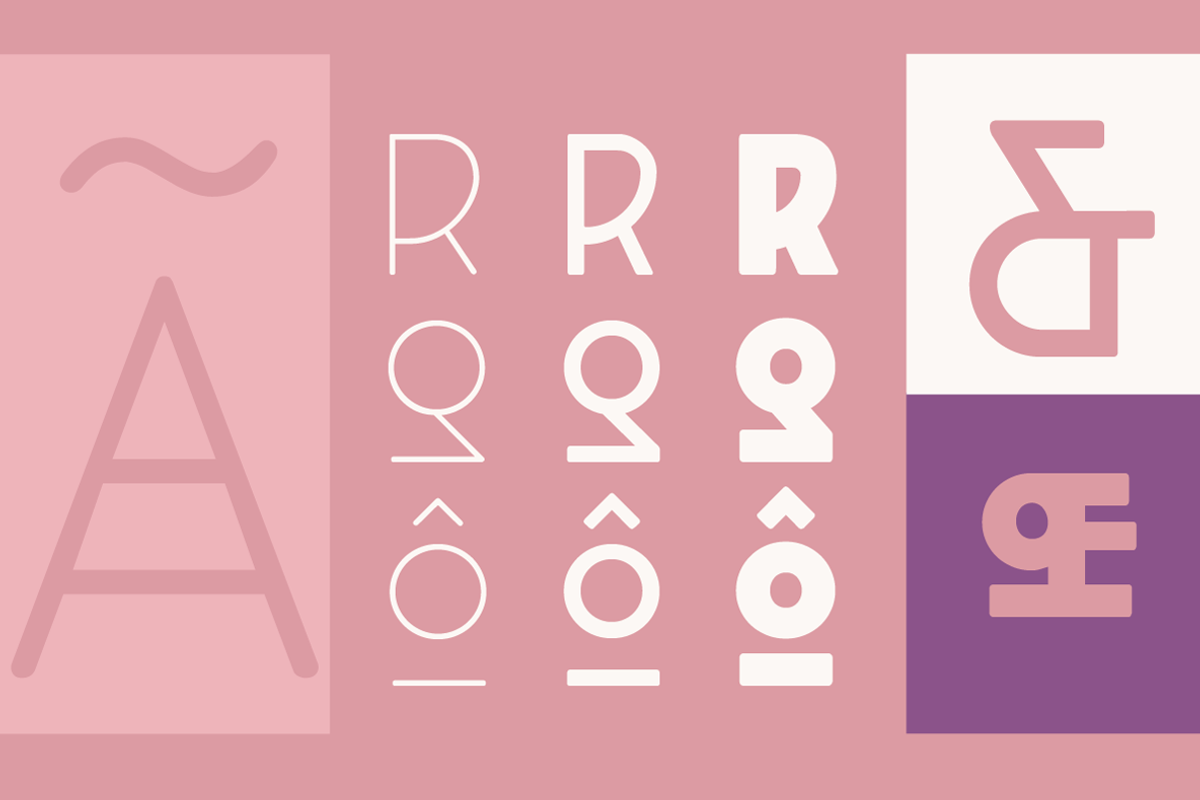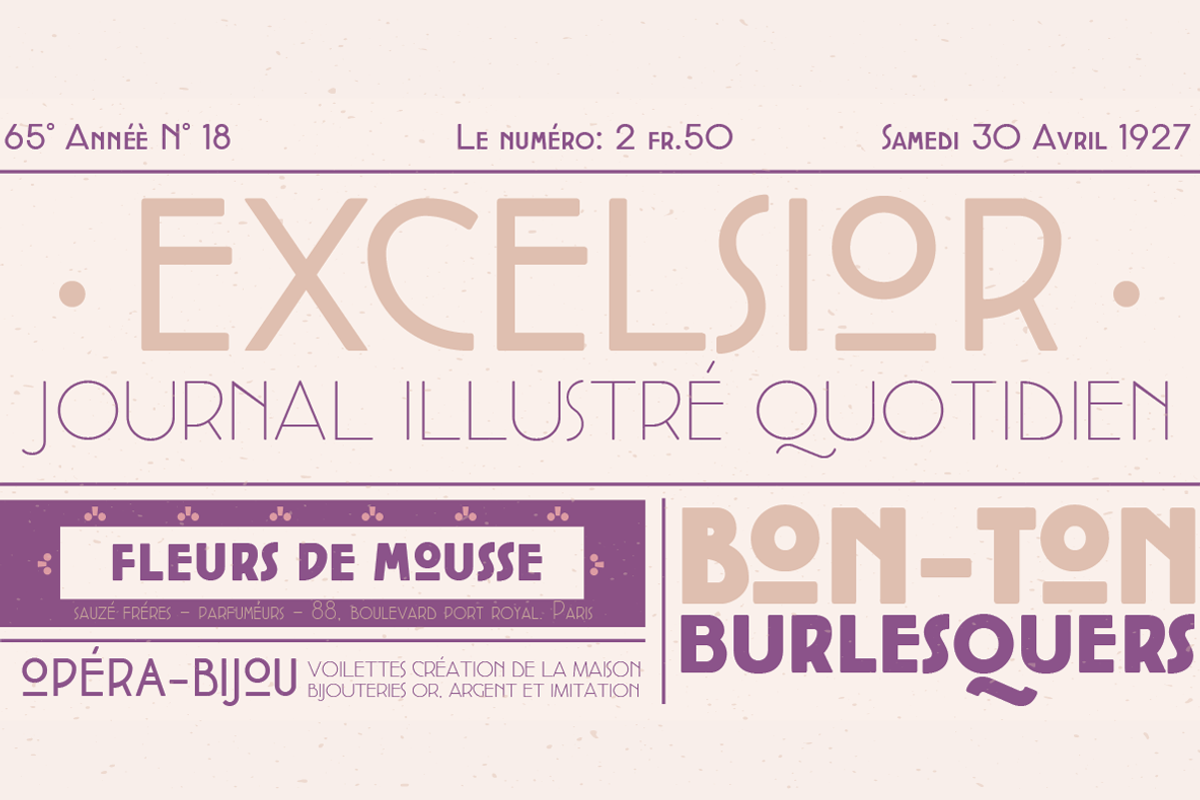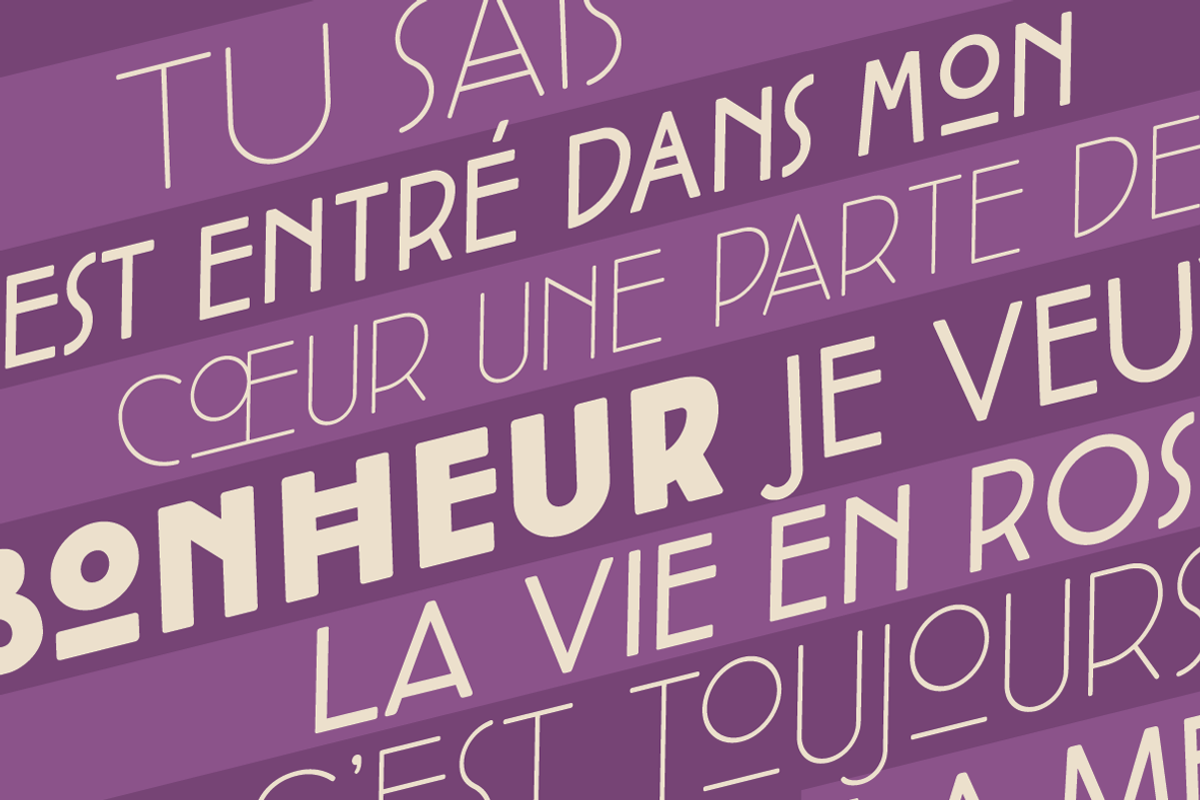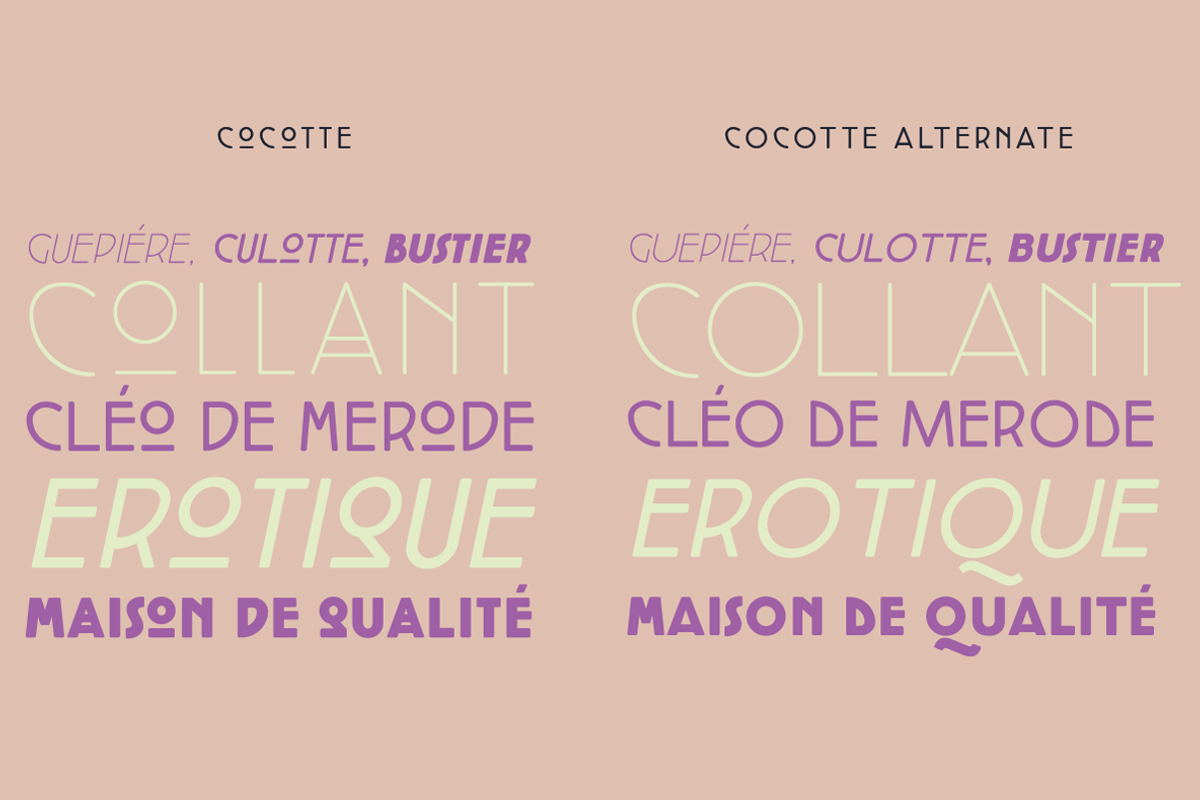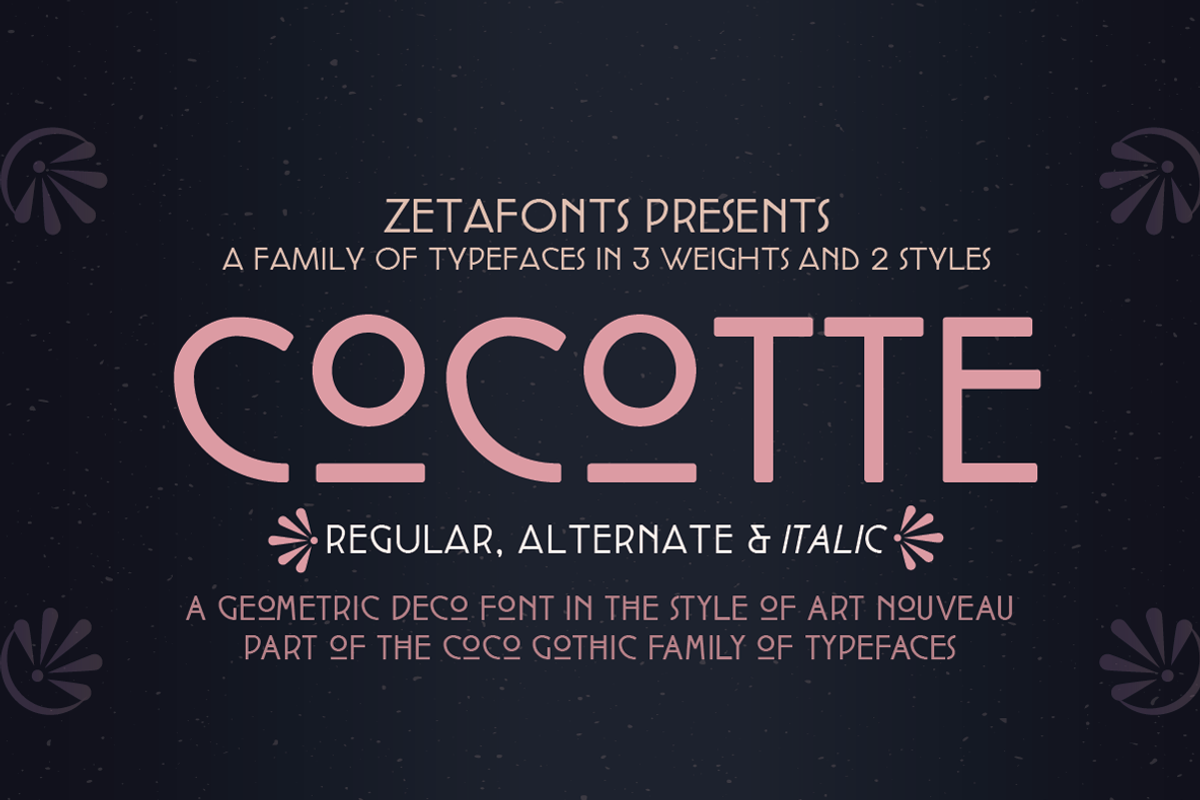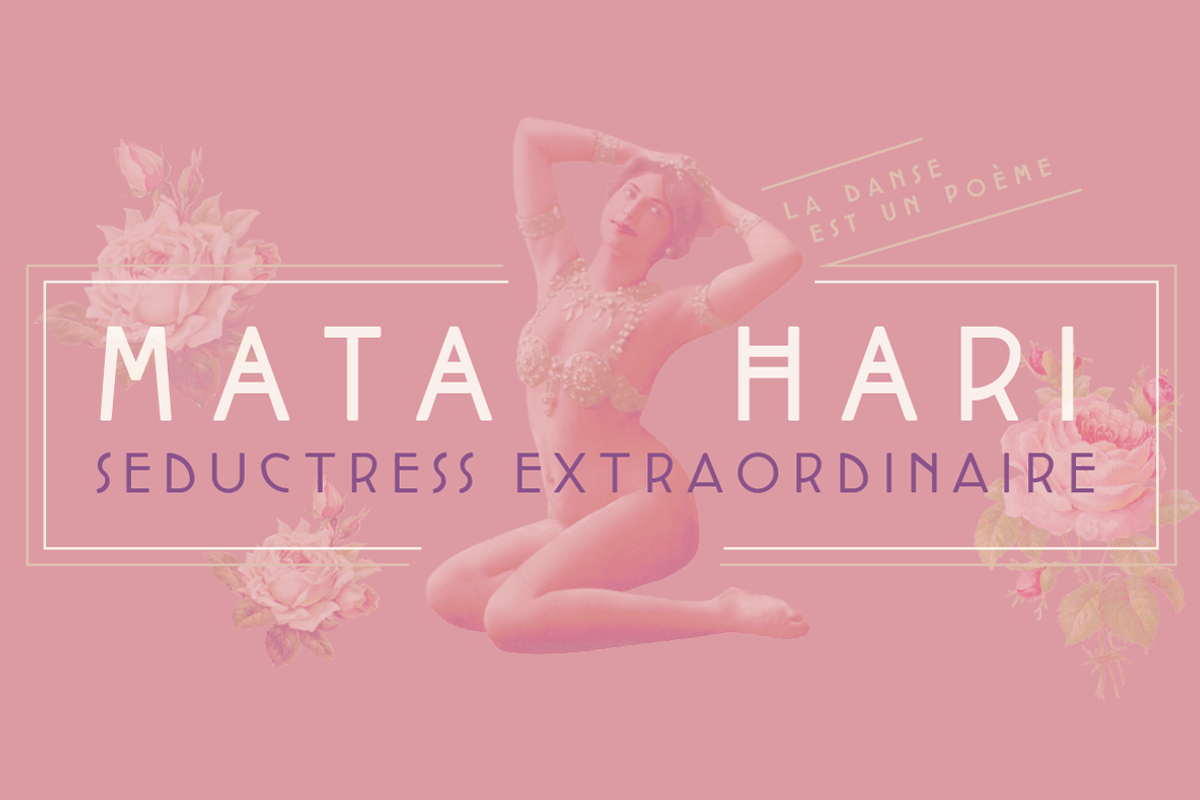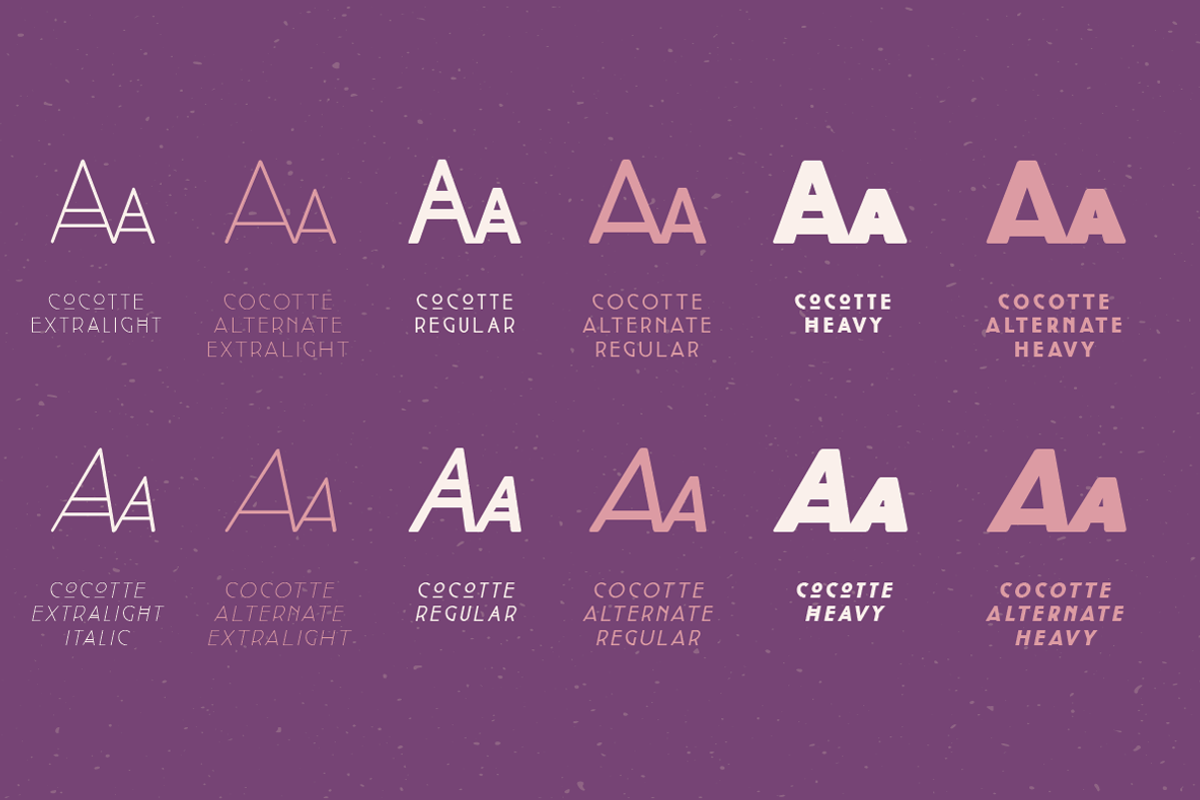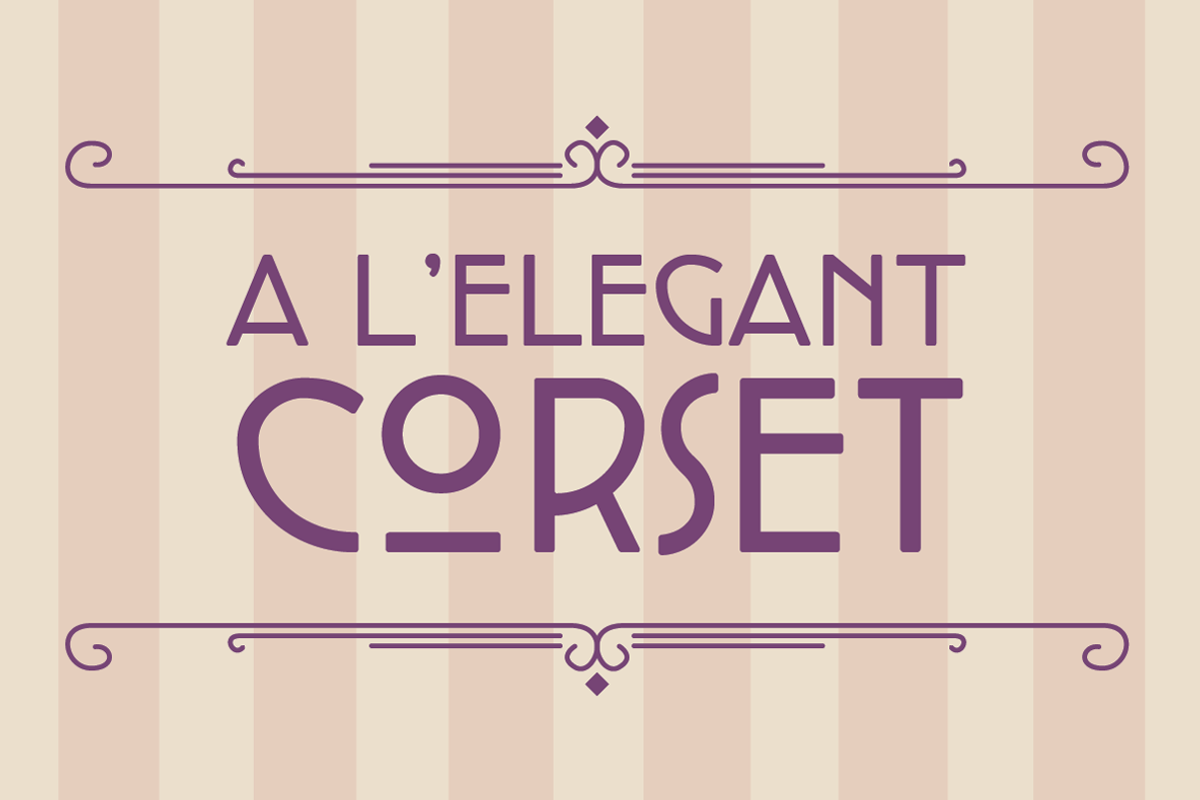
Cocotte - 12 Fonts
Cocotte - 12 Fonts by Zetafonts is a font selected for branding, posters, packaging, typography.
- It comes in three weights with matching italics and features a regular style, inspired by arts&crafts and geometric jugendstil, and an alter
- Cocotte and Cocotte Alternates are the 1900 and 1910 versions of the Coco Gothic typeface family, a contemporary geometric sans serif typefa
Cocotte - 12 Fonts by Zetafonts fits naturally into Branding, posters, packaging, typography.